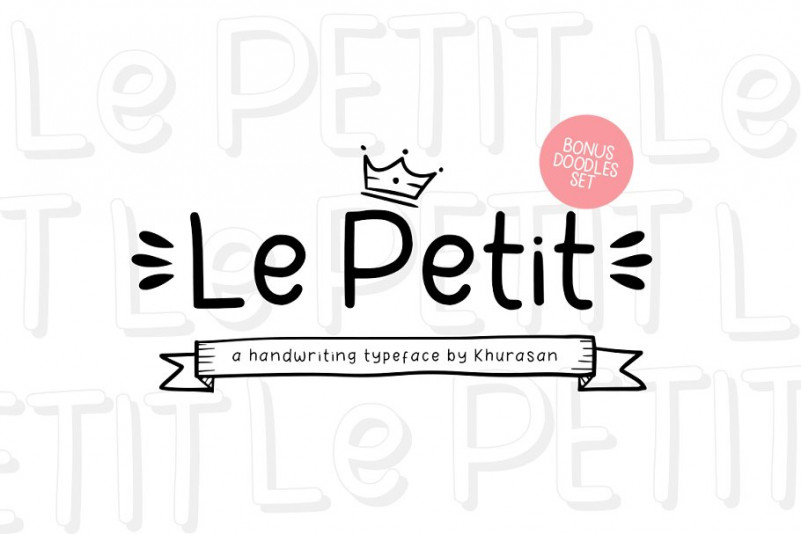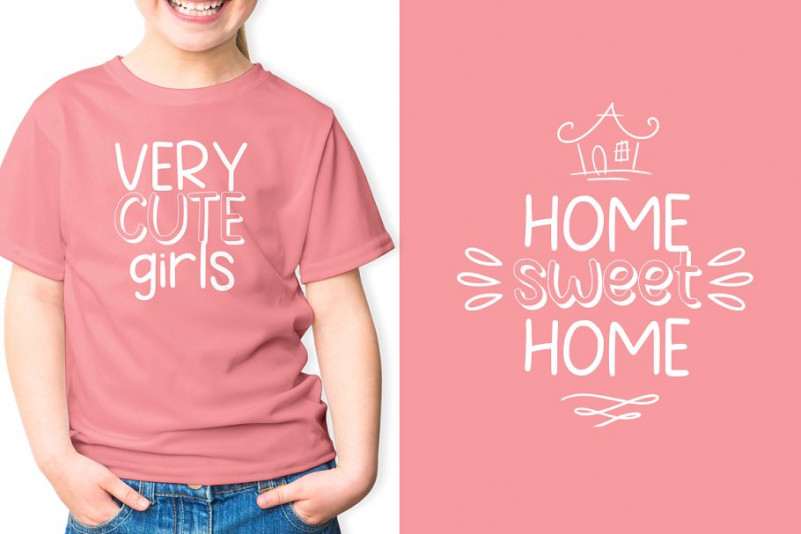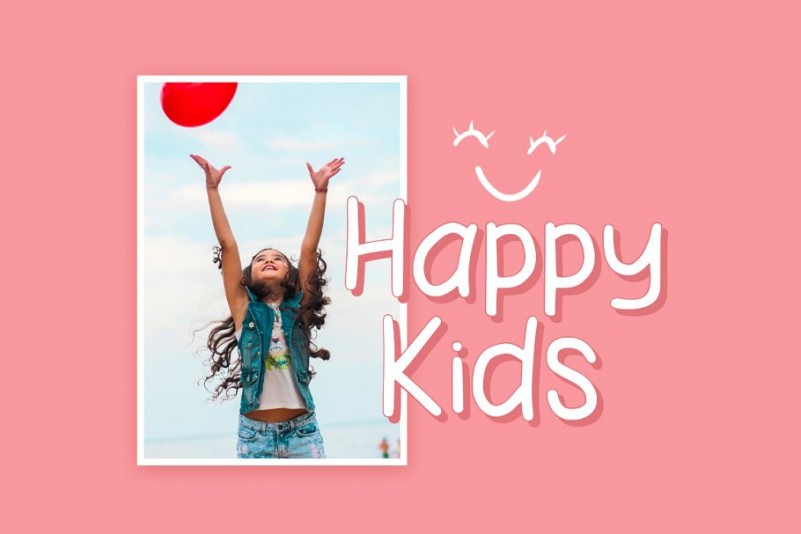
Introducing, Le Petit font a fun display typeface with cheerful theme for your fun project. Le Petit font suitable for logo, branding, greeting card, poster and any design that you create.